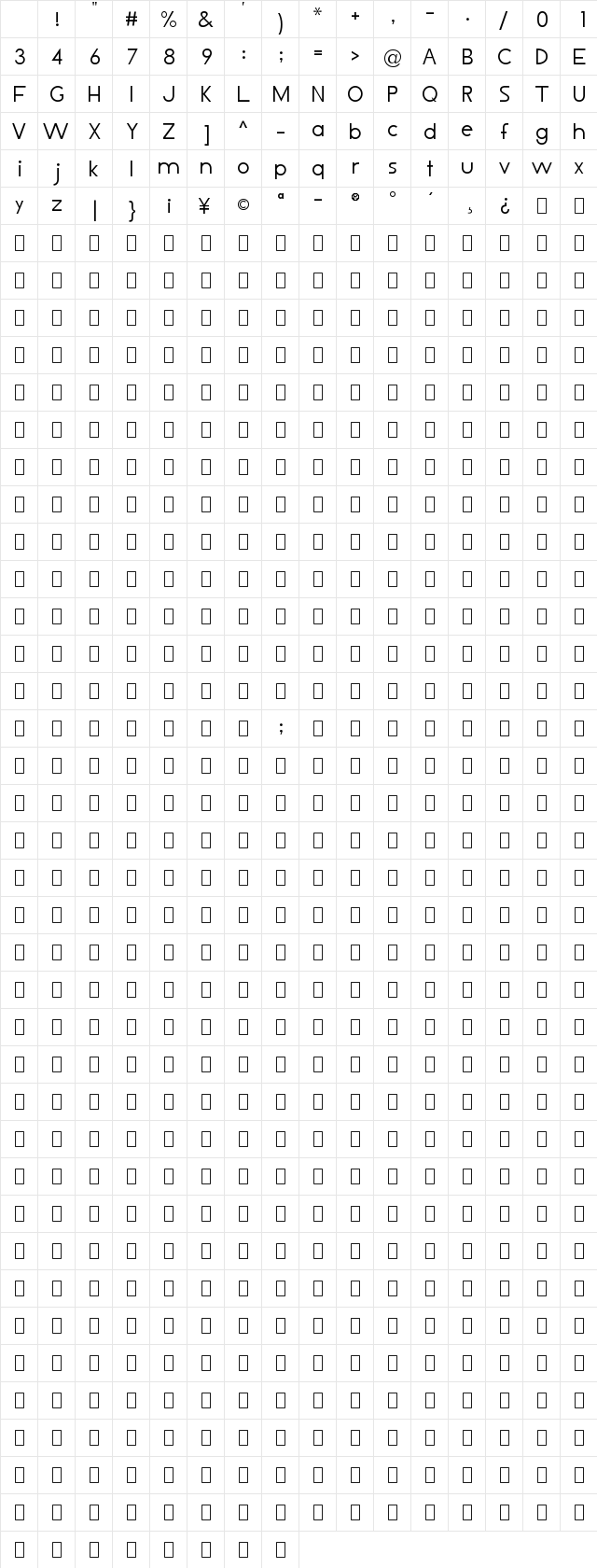
LJ Design Studios IS is a composed and adaptable typeface that performs quietly and consistently across a wide range of design contexts. Its slender proportions lend an understated elegance to any composition.